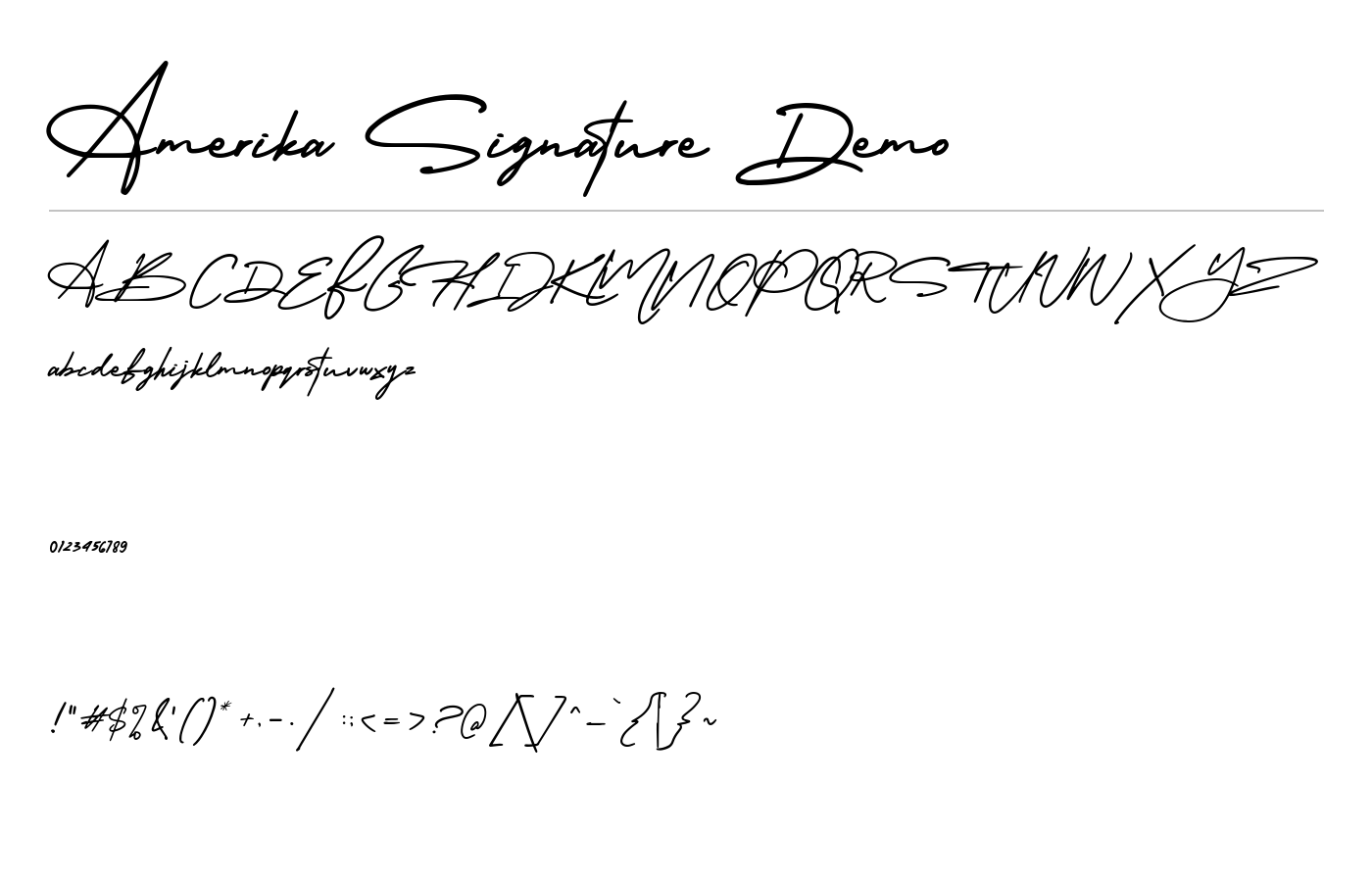
Amerika Signature Demo is a stylish handwritten script font that captures the natural flow and elegance of personal handwriting. With its light, delicate strokes and slightly irregular, casual letterforms, it conveys a modern, sophisticated, and approachable feel, ideal for branding, invitations, and creative designs that seek a personal touch. This font works beautifully in logos, social media graphics, and any project needing a refined yet friendly signature style.
Amerika Signature Demo Font
About Amerika Signature Demo Font